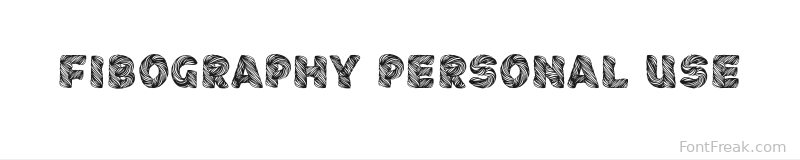
Fibography Personal Use
The Fibography Personal Use font by Mans Greback is a unique display typeface that captivates with its intricate design. This decorative font features a playful, hand-drawn style that gives it an organic, textured appearance, reminiscent of rope or braided elements. The stroke weight is consistent, yet it varies slightly in thickness, creating visual interest without overwhelming the viewer. The spacing between letters is well-balanced, ensuring legibility while maintaining its whimsical character.
This font is particularly well-suited for a variety of creative applications. It works wonderfully for wedding invitations, where its charming aesthetic can add a personal touch. Additionally, it can elevate the design of movie posters, lending a quirky and artistic vibe. Restaurant menus may also benefit from the Fibography Personal Use font, as it can set a casual and inviting tone for diners. Small business owners looking to create eye-catching branding materials will find this font effective for logos and promotional items. Content creators can use it in social media graphics, adding flair to their posts and stories.
What sets the Fibography Personal Use font apart is its ability to blend playfulness with functionality. This font is not just about aesthetics; it captures attention while remaining highly usable across various contexts. Its distinctive character is sure to leave a lasting impression, making it a valuable addition to any designer’s toolkit.